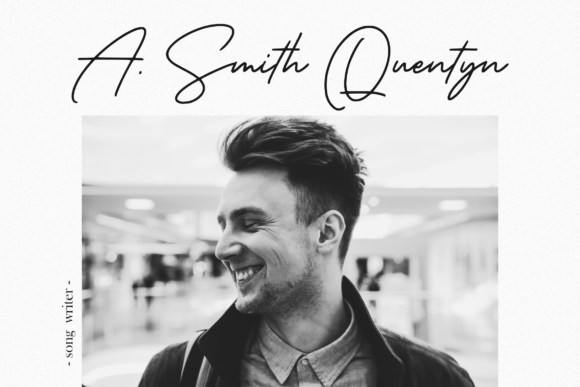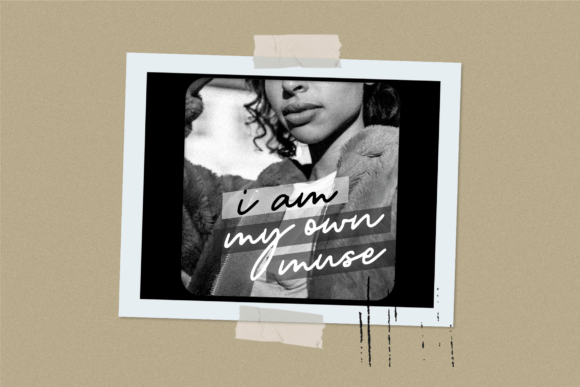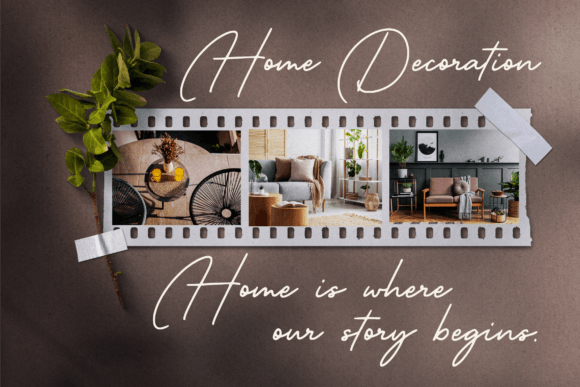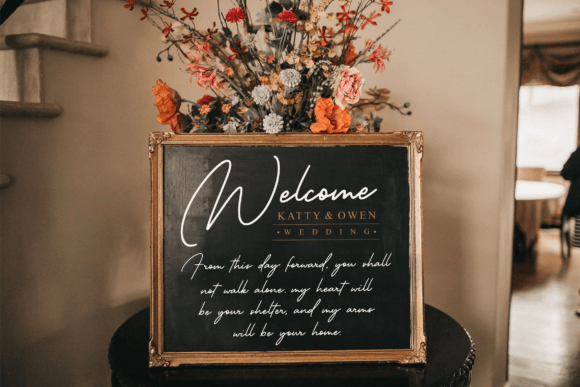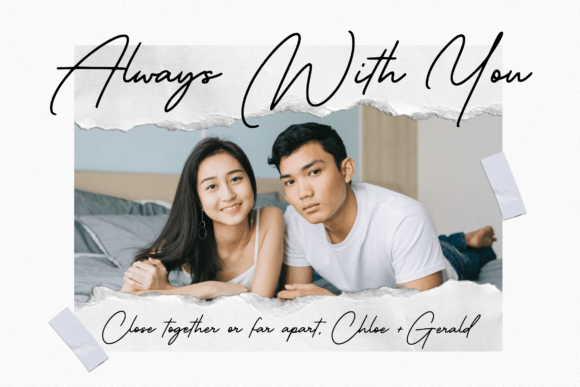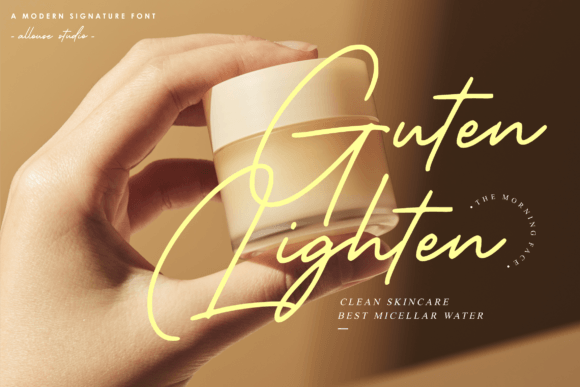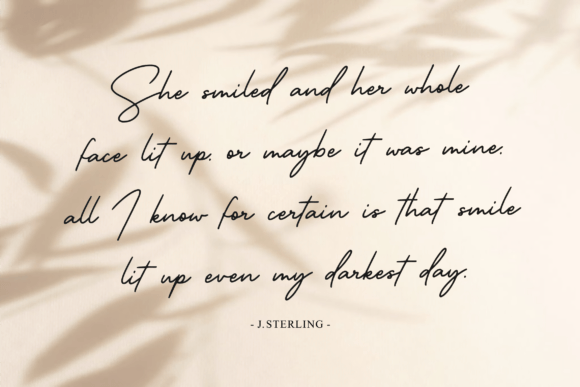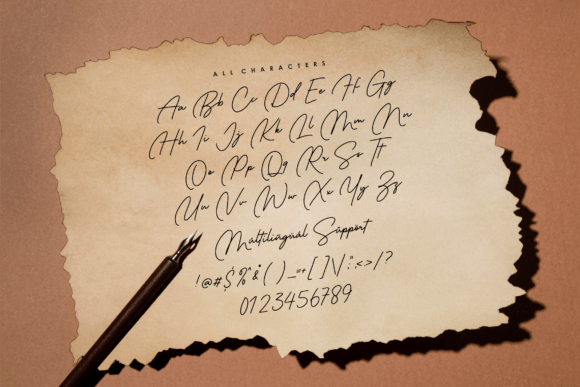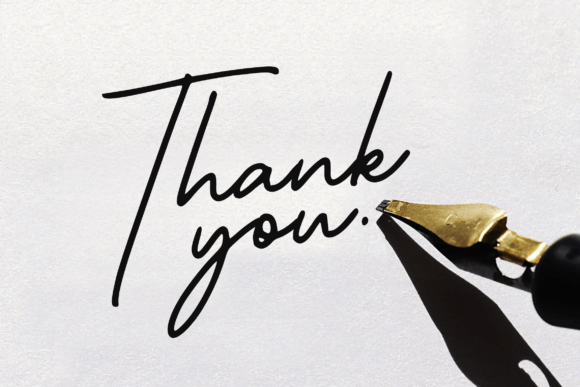
Melbourne Lighthouse Font
Melbourne Lighthouse Font Download – Modern Signature Script
The Melbourne Lighthouse Font download is a modern signature typeface designed for elegance and versatility. With smooth strokes and stylish curves, this font adds a professional yet personal touch to your designs. Whether for digital projects or printed materials, Melbourne Lighthouse combines modern aesthetics with timeless handwritten charm.
A Modern and Elegant Signature Style
The Melbourne Lighthouse Font download features refined monoline strokes that create a sleek and contemporary look. Each letter flows naturally, capturing the essence of a personal signature while maintaining readability. This balance of sophistication and clarity makes it a powerful font for professional branding.
Perfect for Branding and Packaging
Typography is one of the strongest elements of visual identity, and the Melbourne Lighthouse Font download is ideal for logos, product packaging, and promotional materials. Its modern elegance communicates trust and creativity, making it a great choice for fashion, beauty, and lifestyle brands.
Great for Weddings and Special Events
For projects that need a personal and romantic touch, the Melbourne Lighthouse Font download shines in wedding stationery, invitations, greeting cards, and event signage. Its elegant script adds intimacy and beauty, ensuring your special occasion feels truly unique and stylish.
Versatile for Digital and Print Media
The Melbourne Lighthouse Font download is highly adaptable, working just as well in digital graphics as it does in print. Use it for social media posts, magazines, blog headers, or posters. Its polished yet approachable design ensures your work connects with both casual and professional audiences.
Why Choose Melbourne Lighthouse Font?
Among the many signature fonts available, the Melbourne LighthouseFont download stands out for its modern simplicity, stylish flow, and versatile usability. It combines the charm of a handwritten signature with the professionalism of a sleek script font, making it suitable for countless design needs.
Add Modern Elegance to Your Designs
Typography defines how a message feels, and the Melbourne LighthouseFont download ensures your projects radiate sophistication. Whether for packaging, branding, or personal crafts, this font helps you create lasting impressions with elegance and style.